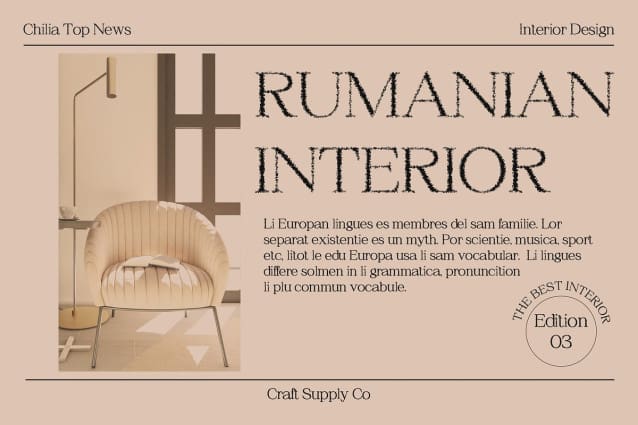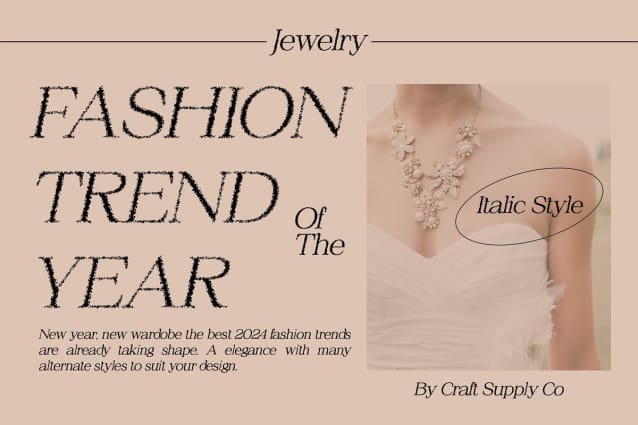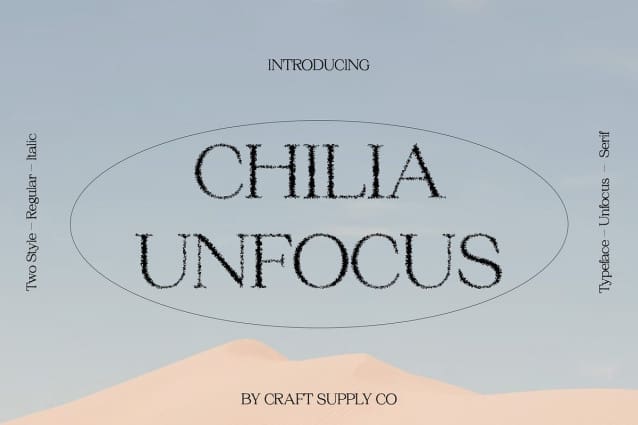
Chilia Unfocus Font
Chilia Unfocus Font: Embracing Chaos in Display Typography. Unconventional Serif Design Chilia Unfocus defies convention with its high-contrast serif display style. The characters exude a sense of disorder, adding a unique and chaotic flair to any project.
Unfocused Elegance With its distinctive unfocused effect, This font challenges traditional notions of legibility. The blurred edges create an intriguing aesthetic, blurring the lines between order and chaos.
Perfect for Display Purposes Tailored for display use, This font thrives in bold statements and eye-catching headlines. Its unconventional appearance demands attention and injects personality into any design.
Versatile and Impactful Despite its seemingly chaotic appearance, This font offers versatility in application. From posters to album covers, its disruptive design adds impact and intrigue to various visual mediums.
Embracing Disorder for Impactful Displays This font redefines display typography with its unconventional serif style and unfocused effect. Embrace the chaos and make a statement with this font, perfect for those seeking to break free from traditional design norms.